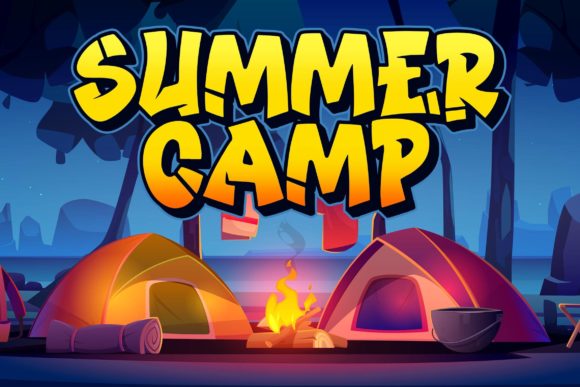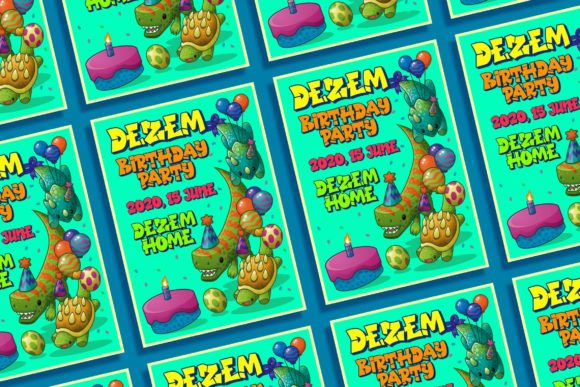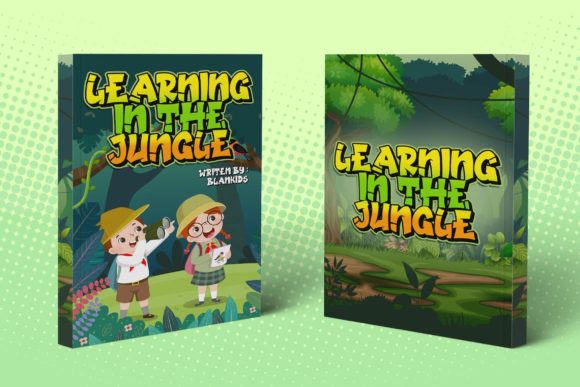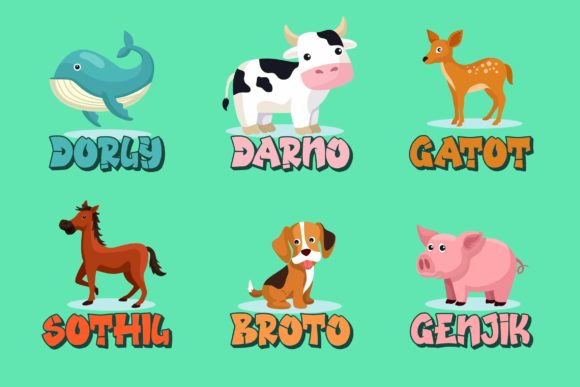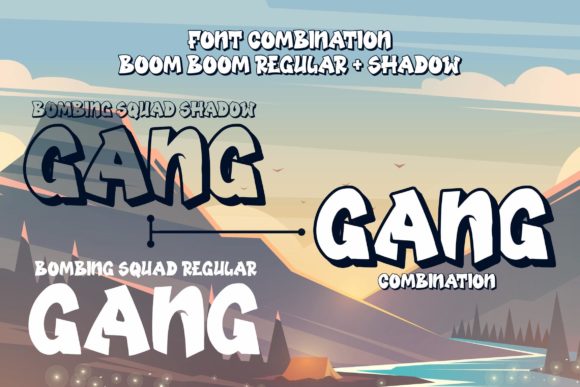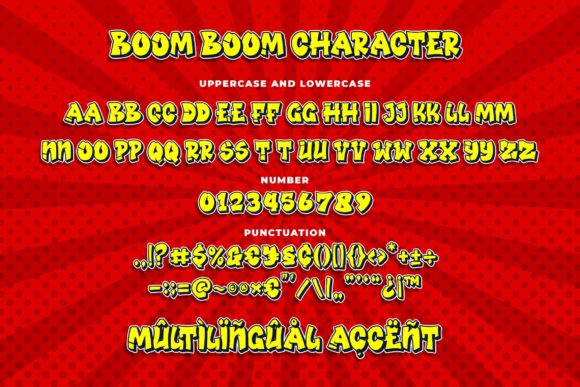
The Perfect Font to Make Your Creative Ideas Pop
You know that moment when a spark of creativity strikes, and you just can’t wait to bring your idea to life? The rush of excitement, the thrill of innovation, and the desire to make it stand out from the crowd. That’s exactly what the Boom Boom Font is designed to do – turn any creative idea into a showstopper!
This chunky lettered and bubbly display font is a game-changer for designers looking to add a touch of whimsy and personality to their projects. With its unique and eye-catching design, the Boom Boom Font is the perfect tool to help you make your mark and leave a lasting impression. Whether you’re working on a graphic design project, a social media campaign, or a digital illustration, this font is sure to add an extra layer of excitement and visual appeal.
Boom Boom Font Key Features
- Font Family: Boom Boom Font is a sans-serif font family designed for digital use.
- Unique Characteristics: Boom Boom Font features a bold, modern design with a unique combination of geometric and organic elements, making it ideal for use in digital interfaces, advertising, and packaging.
Boom Boom Font Review
Overall, I found the Boom Boom Font to be a fun and energetic font, perfect for projects that need a lively and playful touch. ✨ It’s great for use in advertising, social media, and other digital applications where a bold and eye-catching font is needed. The font’s unique design and quirky feel make it stand out from more traditional fonts.
Some of the things that I like about the Boom Boom Font include:
- Its bold and playful design, which makes it perfect for grabbing attention
- Its versatility, which makes it suitable for a wide range of applications
- Its ease of use, which makes it simple to incorporate into designs
However, there are a few limitations to the Boom Boom Font that I should note:
- It may be too bold and overpowering for some designs, especially those that require a more subtle approach
- It may not be suitable for use in formal or professional settings, where a more traditional font is often preferred
- It may be difficult to read in certain contexts, especially at smaller font sizes
Overall, I would recommend the Boom Boom Font for projects that require a bold and playful touch, but not for those that require a more subtle or traditional approach. ⚠️
Boom Boom Font is best used for playful and energetic designs, such as children’s products, sports branding, and entertainment logos. To get the most out of it, experiment with different font sizes, colors, and styles to create a bold and eye-catching look. You can also combine Boom Boom Font with other fonts to create a unique and visually appealing design.